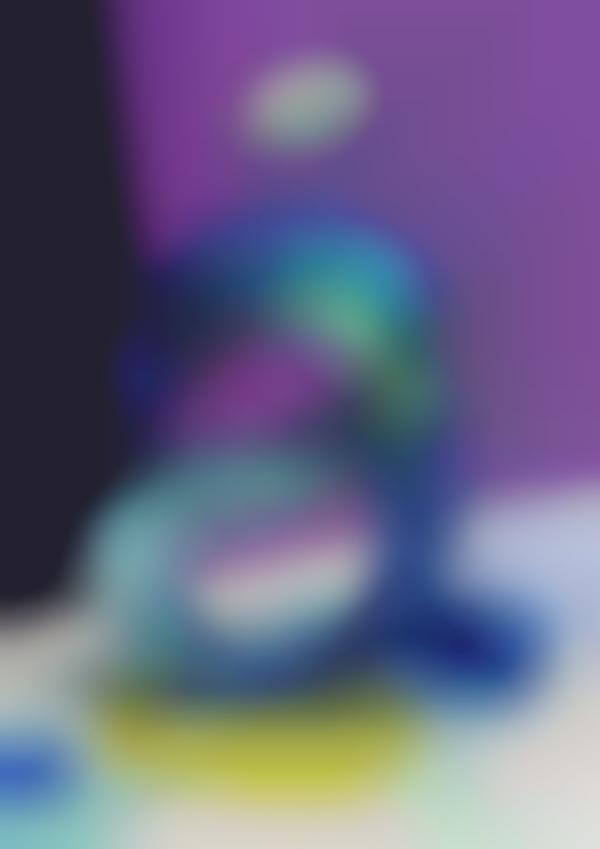
Artist and designer Pawel Nolbert created an expressive paint stroke font with unconventional painting techniques. The series of typography, titled 'Atypical,' features letters constructed with fluid paintbrush strokes and vibrant watercolors.
They are aesthetically pleasing, considering they steer clear from traditional graphic typography methods that tend to be boxy and geometrical. Each letter is being sold on the artist's website as a poster. They are the perfect gift for visual artists and graphic artists alike. They explore form and rhythm of letters and are "presented as half-realistic, half-illustrative figurative sculptures."
Many of the letters take on spirally shapes, so it may be hard for the viewer to depict the letter that is actually being presented at first glance. But isn't that what art is all about? There is more than what meets the eye.
Paint Stroke Typography
Pawel Nolbert's 'Atypical' Typeface is Essentially a Paint Stroke Font